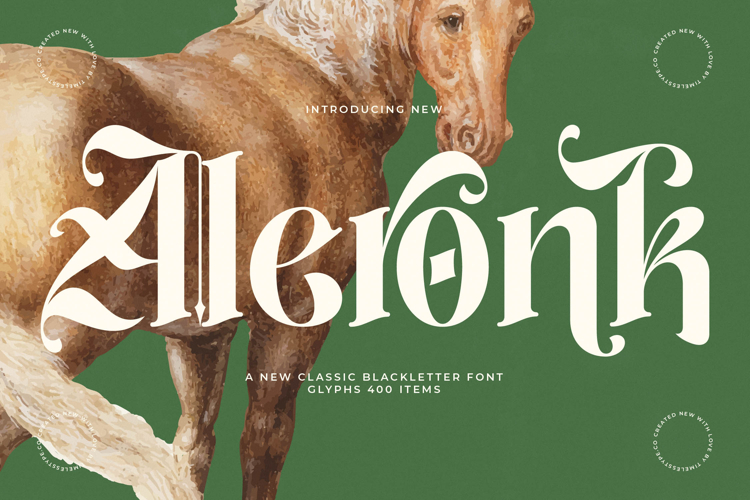
Aleronk - New Classic Blackletter Font
Discover the epitome of timeless elegance reimagined for the contemporary design landscape. Introducing Font Aleronk - New Classic Blackletter Font , a magnificent typeface that masterfully fuses the stately grandeur of traditional Blackletter with a clean, modern aesthetic. Its high-contrast strokes, intricate flourishes, and commanding presence create a truly distinctive visual impact, perfect for projects demanding sophistication and heritage.
Elevate your design projects with unparalleled craftsmanship and impact. Font Aleronk - New Classic Blackletter Font is meticulously designed to offer a rich typographical experience, boasting over 400 glyphs for truly expressive and artistic compositions. Each character is imbued with an exquisite blend of readability and ornate beauty, ensuring your message is not only seen but profoundly felt, establishing a strong and memorable brand identity.
Unlock global design potential with a font that speaks volumes across cultures. With its extensive multilingual support, Font Aleronk - New Classic Blackletter Font adapts seamlessly across global markets, making it incredibly versatile for international projects. This feature ensures your brand maintains its distinctive voice and professional appeal, regardless of geographical boundaries, fostering consistent brand recognition worldwide.
Transform your next creation into a masterpiece of design and distinction. Font Aleronk - New Classic Blackletter Font is impeccably suited for luxury branding, premium packaging, high-end editorial design, exclusive invitations, and captivating event posters. Choose this font to infuse your work with an aura of exclusivity and historical grandeur, guaranteeing an unforgettable visual statement that resonates with discerning audiences.